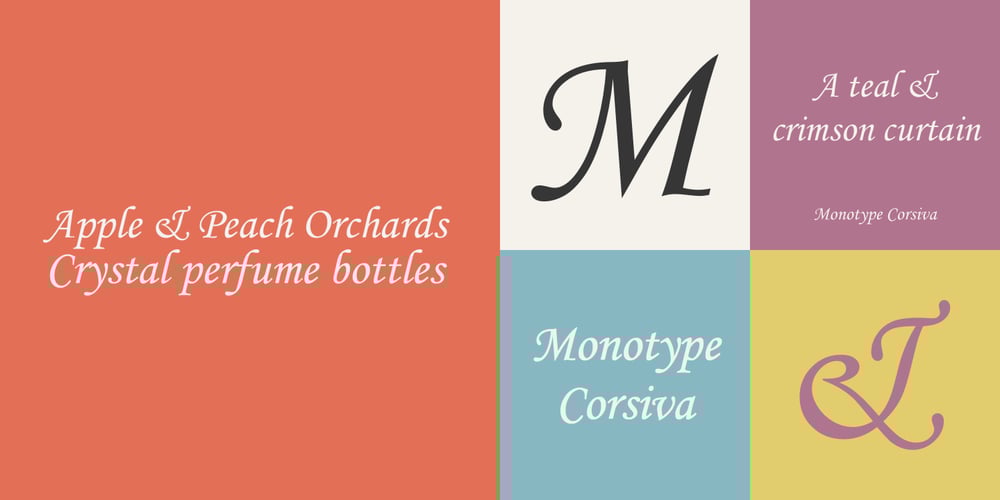
Monotype Corsiva Font Family was designed by Patricia Saunders and published by Monotype. Monotype Corsiva contains 4 styles and family package options. Monotype Corsiva is an italic typeface made in the style of the early Italian cursives as exemplified by the work of the writing master, Ludovico degli Arrighi, in the sixteenth century. The capitals of the Monotype Corsiva font are of swash design, with characteristic flourishes, designed primarily for use as initial letters. Monotype Corsiva can be used for short text passages in advertising but is best used to add sparkle to invitations, greetings cards and menus and to give a sense of occasion to certificates and awards.